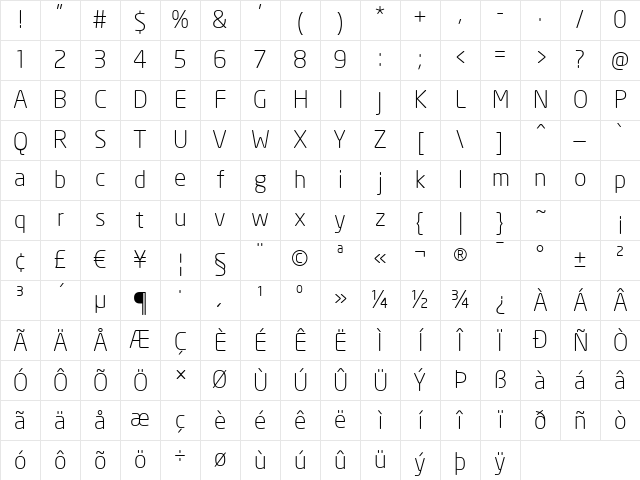
Neo Sans is a composed and adaptable typeface that performs quietly and consistently across a wide range of design contexts. Its slender proportions lend an understated elegance to any composition.